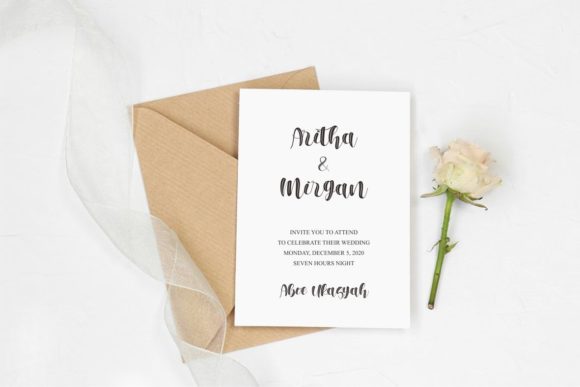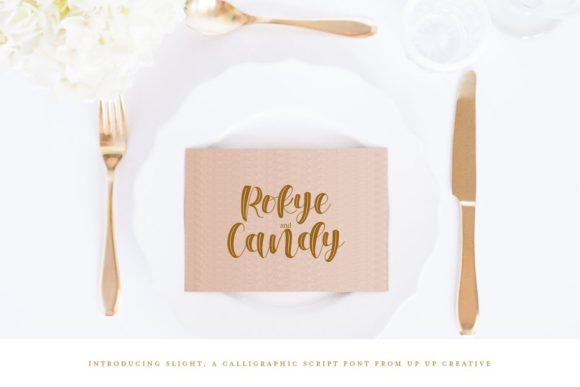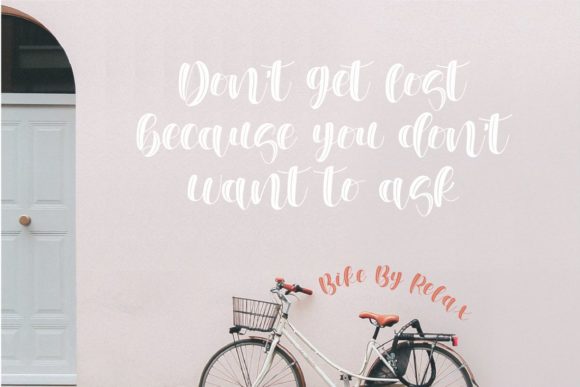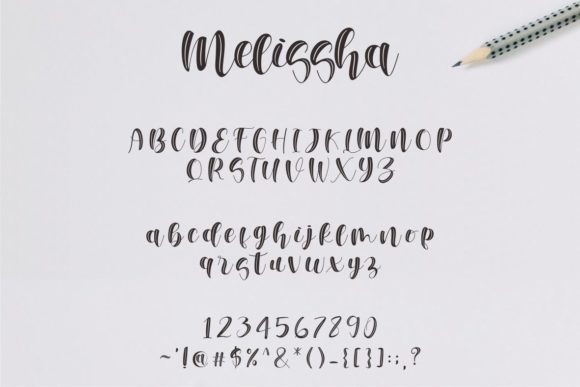
Introduction to Melisha Font
Have you ever found yourself doodling in the margins of a notebook, watching as your pen dances across the page in a beautiful, fluid motion? For many creatives, this is the spark that ignites a new project or idea. For designers, it’s the perfect starting point for bringing a vision to life. And when it comes to adding that special touch, there’s one font that stands out from the rest: Melisha Font.
With its sweet, romantic calligraphy and characters that seem to dance along the baseline, Melisha Font is the perfect design resource for any creative project. Whether you’re working on a high-quality logo, wedding invitation, or even a simple t-shirt design, this elegant font is sure to add a touch of sophistication and whimsy to your work.
Key Features of Melisha Font
- High-quality design resource ideal for creative projects, offering a unique and elegant aesthetic.
- Features a high-resolution design, suitable for use in both print and digital applications.
- Supports various font sizes and styles, making it a versatile design resource for various creative projects.
- Designed with a modern and sophisticated feel, making it an excellent choice for high-end creative projects.
Honest Review: Melisha Font
As a designer, I’m always on the lookout for high-quality fonts that can elevate my creative projects. Recently, I came across the Melisha Font, and I was excited to give it a try.
- ✨ Beautiful and elegant design: The Melisha Font has a sophisticated and refined look that’s perfect for luxury brands or high-end creative projects.
- ✨ Wide range of weights and styles: The font comes with multiple weights and styles, making it versatile and suitable for various design needs.
- ⚠️ Limited language support: The Melisha Font may not support all languages, which could be a concern for designers working on international projects.
- ⚠️ Not ideal for small text: The font’s elegant design makes it less suitable for small text sizes, which could be a challenge for designers working on complex layouts.
Overall, I think the Melisha Font is a great addition to any designer’s toolkit. While it has its limitations, its high quality and elegant design make it a valuable resource for creative projects that require a touch of sophistication.
Melisha Font is ideal for creative projects requiring a high-quality, unique design resource. Its transparent background makes it perfect for overlaying text on images.